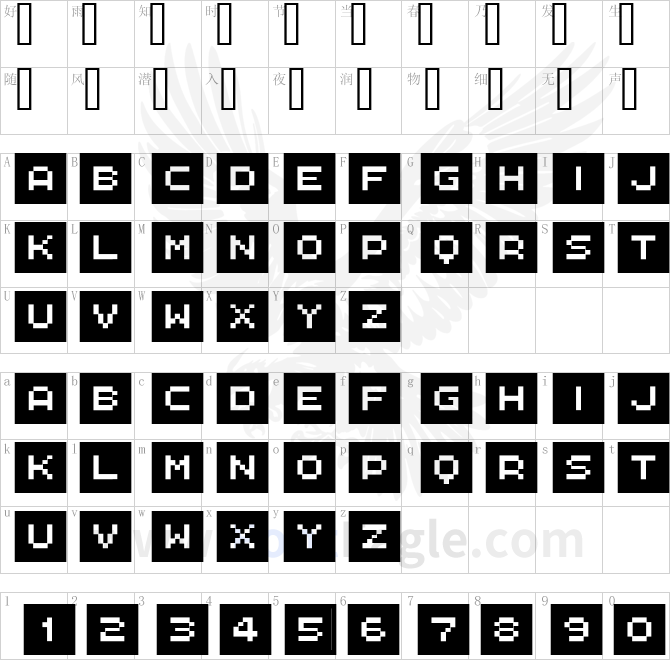
FFF-Interface04 is a great font, widely used in graphic design, single-page menu design, poster design and other fields, and is deeply loved by designers.FFF-Interface04 download.